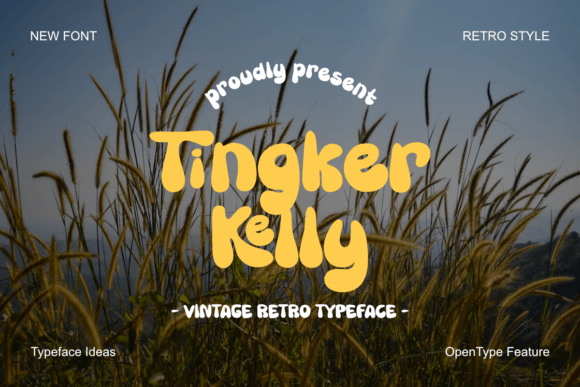
Step into the realm of vintage charm and timeless elegance as you introduce Tingker Kelly into your creative world. This captivating retro display font is specially crafted to add a touch of nostalgia and warmth to your designs, making it the perfect choice for t-shirts, stickers, DIY projects, crafts, POD (Print on Demand), printing, invitations, cards, and endless creative projects.
Embark on a journey back in time with Tingker Kelly, a font that emanates the spirit of classic designs. Its meticulously crafted characters exude an enchanting retro vibe, sure to leave a lasting impression on your audience. Whether you're a budding entrepreneur looking to make a statement or a seasoned designer seeking to elevate your creations, Tingker Kelly is the perfect companion to bring your artistic vision to life.
Experience the allure of Tingker Kelly and discover the boundless possibilities it holds. From whimsical t-shirts that evoke a sense of nostalgia to heartwarming stickers that tell a story, this versatile font is the key to unlocking your creative potential. Explore the world of DIY projects and crafts, using Tingker Kelly to add a touch of vintage charm to your handmade creations.
Don't miss out on the opportunity to make your designs truly unforgettable. Tingker Kelly is the font that will set your work apart, leaving a lasting impression on your audience. Embrace the charm of yesteryear and infuse your designs with timeless beauty.